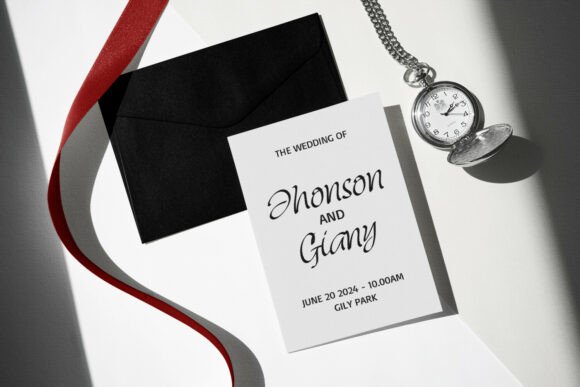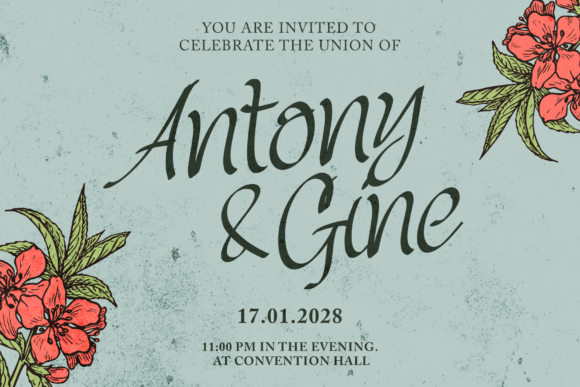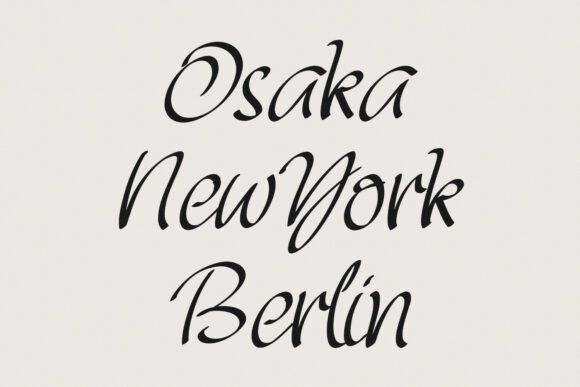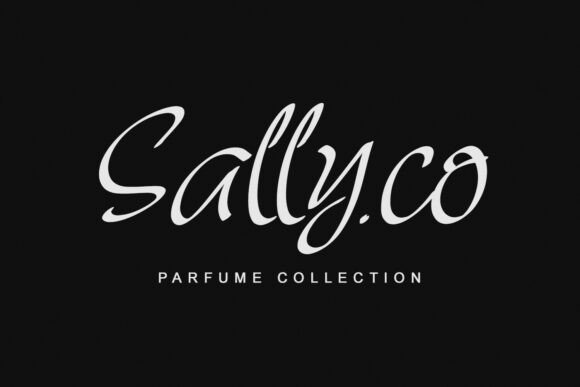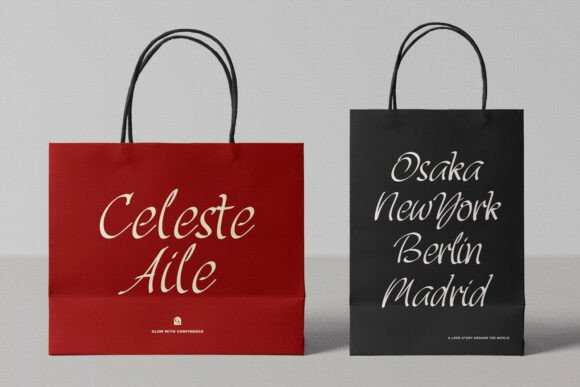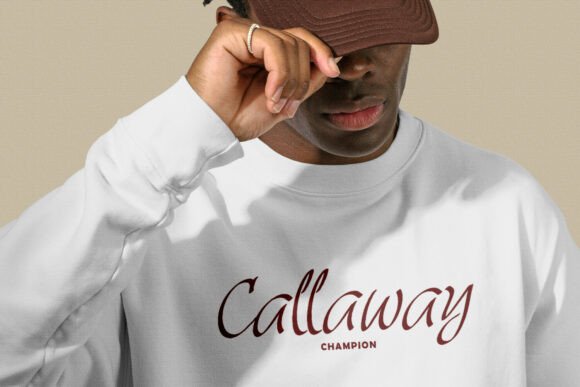
Introducing Blomag Oakland: Elevate Your Designs with a Touch of Elegance
In the world of typography, a font can make or break the aesthetic of a design. For crafters, designers, and creatives looking to infuse their projects with a personal and elegant touch, Blomag Oakland emerges as a game-changer. This modern handwritten script typeface is not just a font; it’s a statement of sophistication and style, designed to transform your creative endeavors into visually stunning works of art.
The Essence of Blomag Oakland
Blomag Oakland is a meticulously crafted font that embodies the perfect blend of modernity and elegance. Its smooth curves and expressive strokes are the hallmarks of this typeface, making it an ideal choice for anyone looking to add a layer of refinement to their designs. Whether you’re working on product branding, packaging, labels, or invitations, Blomag Oakland promises to elevate your project with its unique charm.
One of the standout features of Blomag Oakland is its versatility. This font is not limited to a specific genre or industry; it can be seamlessly integrated into a wide array of design projects. For product branding, it offers a distinctive and memorable look that can set your products apart in a crowded market. When it comes to packaging, Blomag Oakland adds a touch of luxury and sophistication, making your products stand out on the shelves.
Crafting Invitations and More
Invitations, whether for weddings, parties, or corporate events, require a font that communicates elegance and class. Blomag Oakland steps up to the challenge, providing a beautiful and readable script that sets the tone for a memorable event. Beyond invitations, this font is also perfect for labels, offering a stylish way to brand your products or organize your space with a personal touch.
Why Choose Blomag Oakland?
- Elegant and Personal Touch: Adds a sophisticated and personal feel to your designs.
- Versatile: Suitable for a variety of projects including branding, packaging, labels, and invitations.
- Modern and Unique: Stands out with its smooth curves and expressive strokes, offering a fresh alternative to traditional fonts.
- Easy to Read: Despite its elegant nature, Blomag Oakland remains highly legible, making it practical for a range of applications.
Tips for Using Blomag Oakland
- Pair with Neutrals: Let Blomag Oakland be the star of your design by pairing it with neutral backgrounds or complementary fonts.
- Experiment with Sizes: Play with different sizes to emphasize certain words or phrases, adding depth to your design.
- Color Matters: Choose colors that complement the elegance of Blomag Oakland, such as soft pastels, rich jewel tones, or classic black and white.
Blomag Oakland is more than just a font; it’s a design companion that brings elegance, versatility, and a personal touch to your creative projects. Whether you’re a seasoned designer or a DIY enthusiast, this modern handwritten script typeface is poised to become your go-to for creating stunning and memorable designs. With Blomag Oakland, you’re not just choosing a font; you’re elevating your design’s potential to leave a lasting impression.